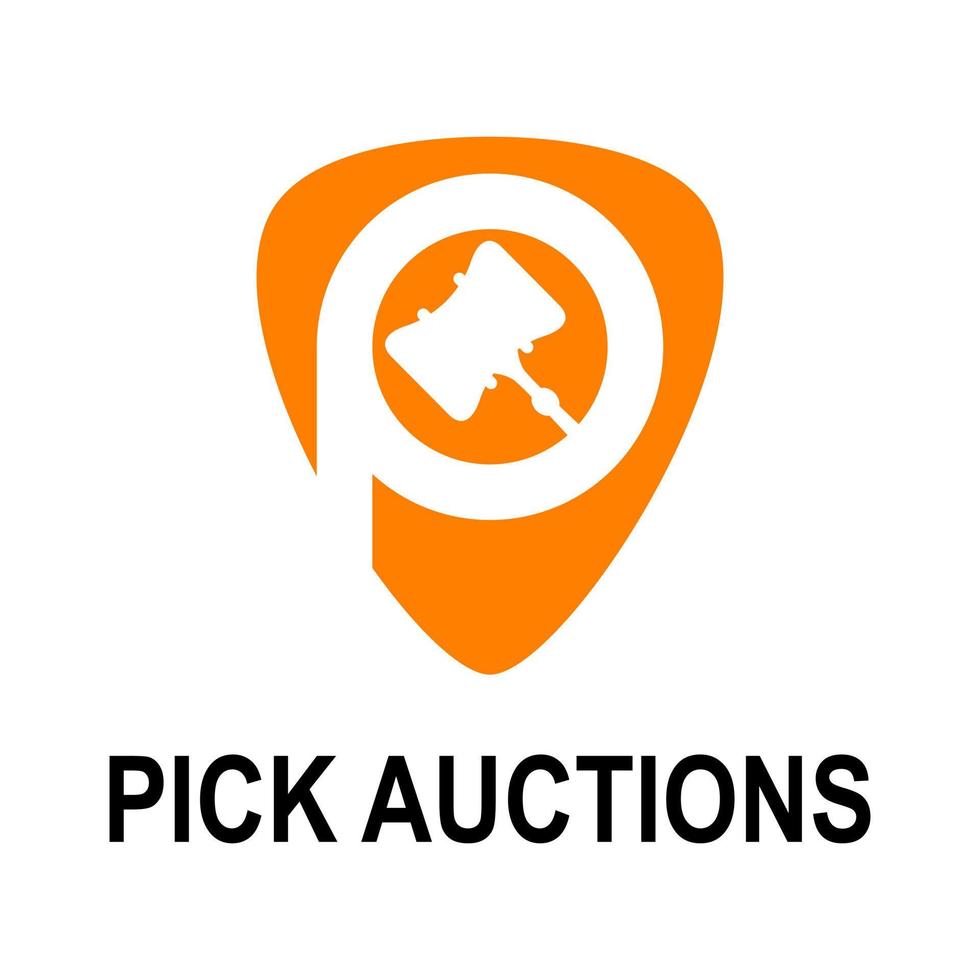
simple Letter or word P font with hammer court on guitar pick image graphic icon logo design abstract concept vector stock. Can be used as a symbol related to initial or music Pro Vector